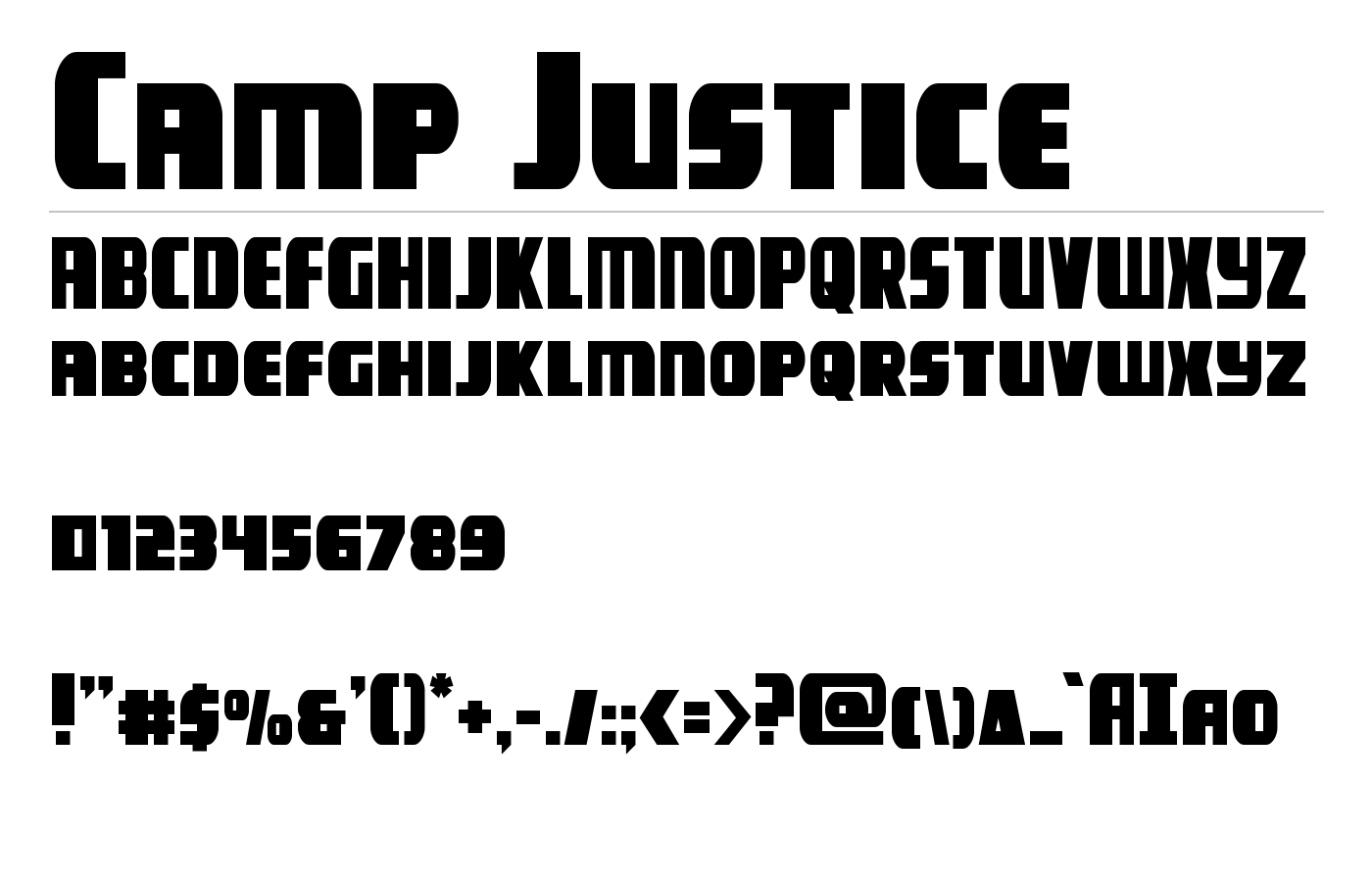
Camp Justice is a bold, condensed sans serif font with a strong, blocky appearance that conveys power and authority. Its geometric, sharp-edged letterforms with minimal contrast make it ideal for impactful headlines, logos, and display uses where a sturdy, modern vibe is desired. This font works well for branding and designs that need to communicate strength, confidence, and clarity.
Camp Justice Font